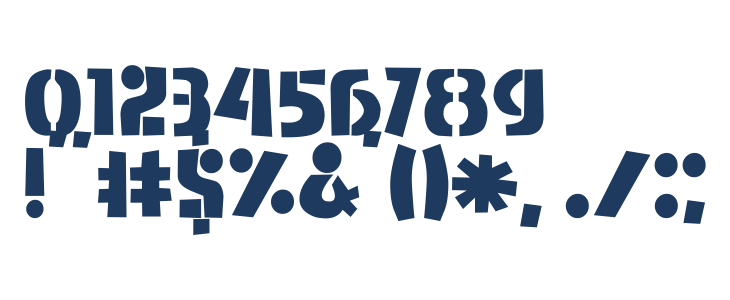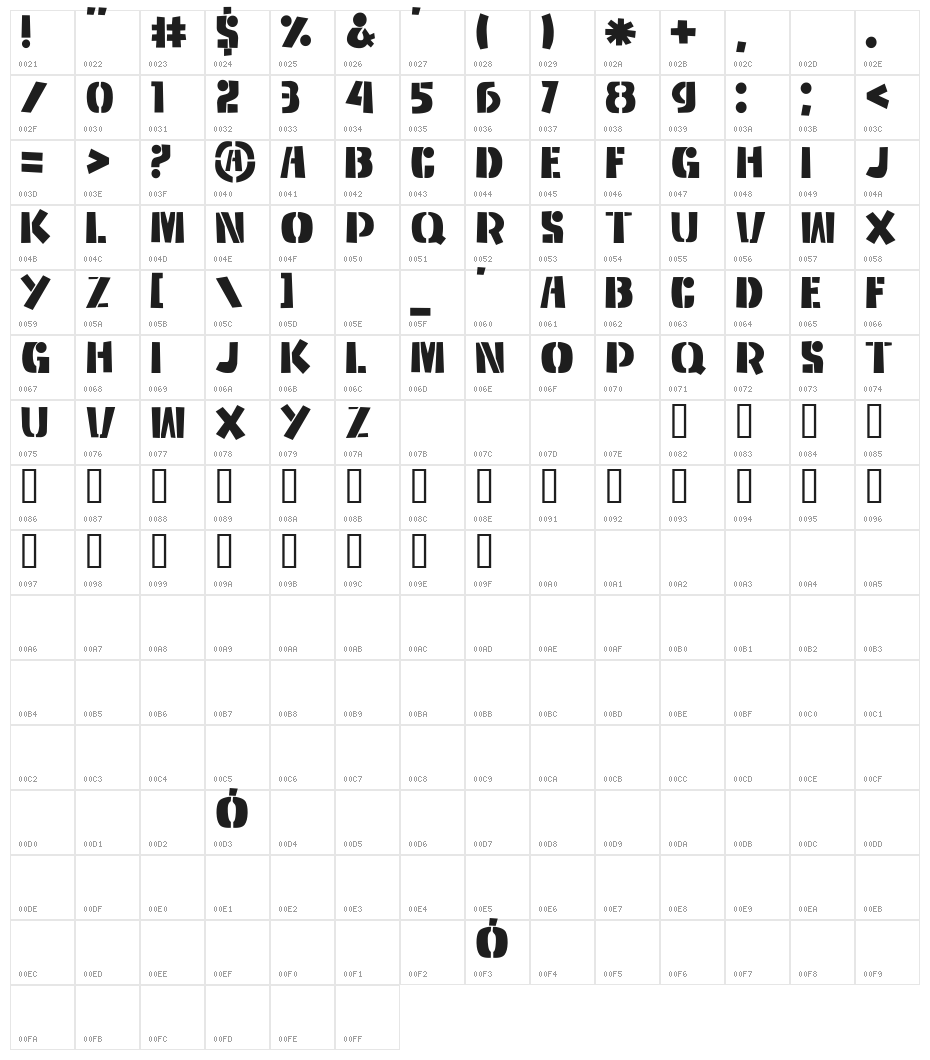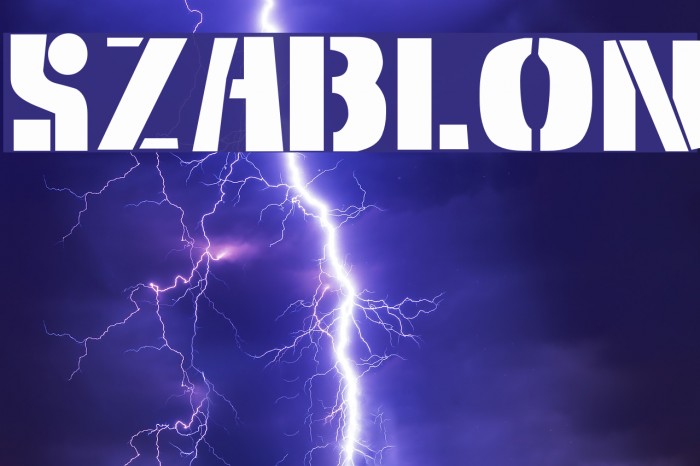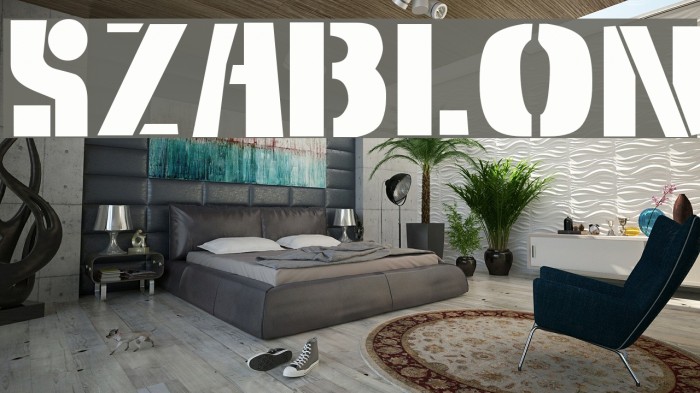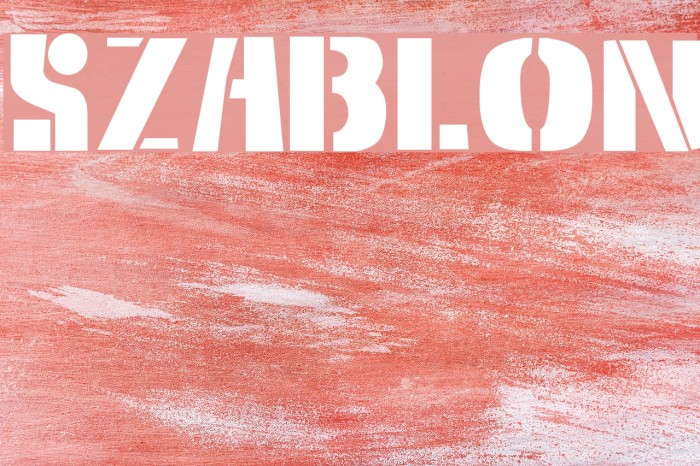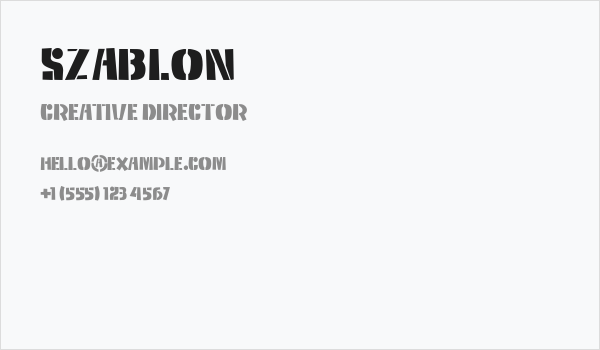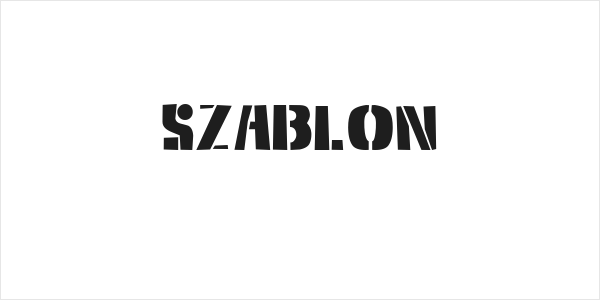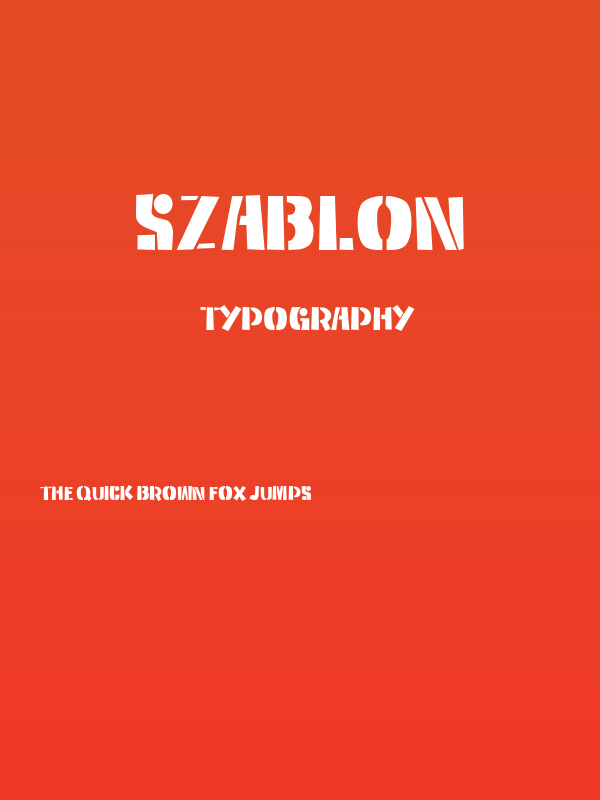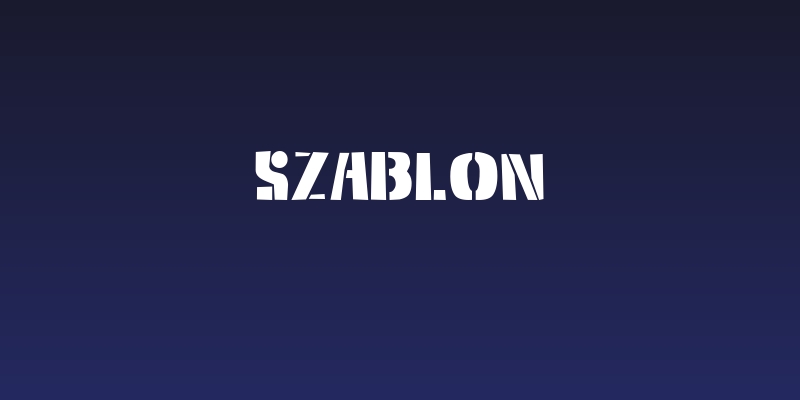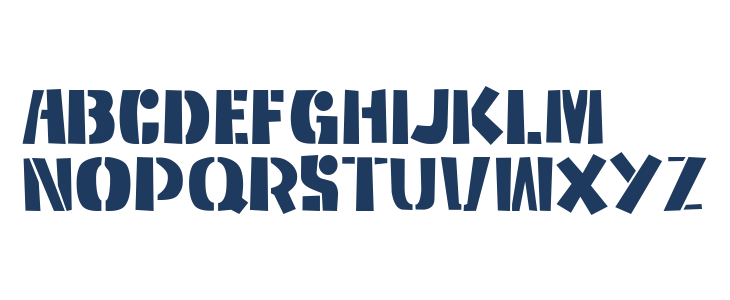
Szablon Font
Szablon Description
This font features a bold and striking design with a stencil-like appearance. The characters are constructed with thick, solid strokes and have distinct cut-out sections, giving them a unique, industrial feel. The uppercase and lowercase letters maintain a consistent style, with angular and geometric shapes that create a sense of uniformity and strength. The numbers and special characters follow the same design principles, ensuring a cohesive look across all elements. This font's boldness and distinctive style make it ideal for attention-grabbing designs.
| Overall Style | Industrial, Modern |
| Proposed Projects | Ideal for posters, branding, packaging, and any project requiring a strong, industrial aesthetic. |